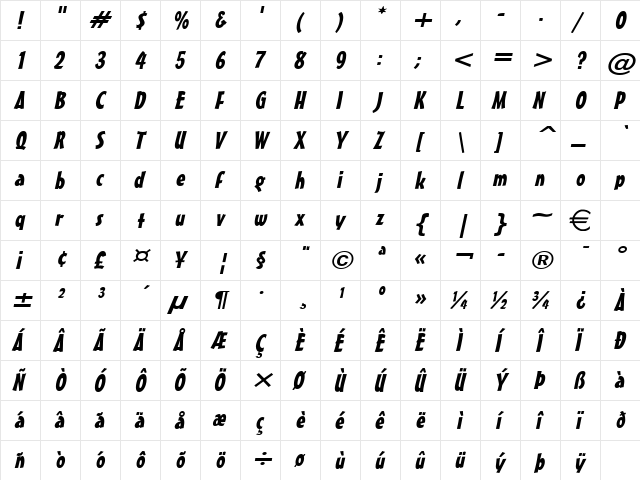
MasseyWide Italic
Design Context for MasseyWide Typeface
MasseyWide is a composed and adaptable typeface that performs quietly and consistently across a wide range of design contexts. Its italic angle brings a sense of urgency and motion to the letterforms.
Pro Tip: Try MasseyWide for annotation and caption copy alongside an upright companion — the contrast in angle creates a dynamic but ordered typographic system.